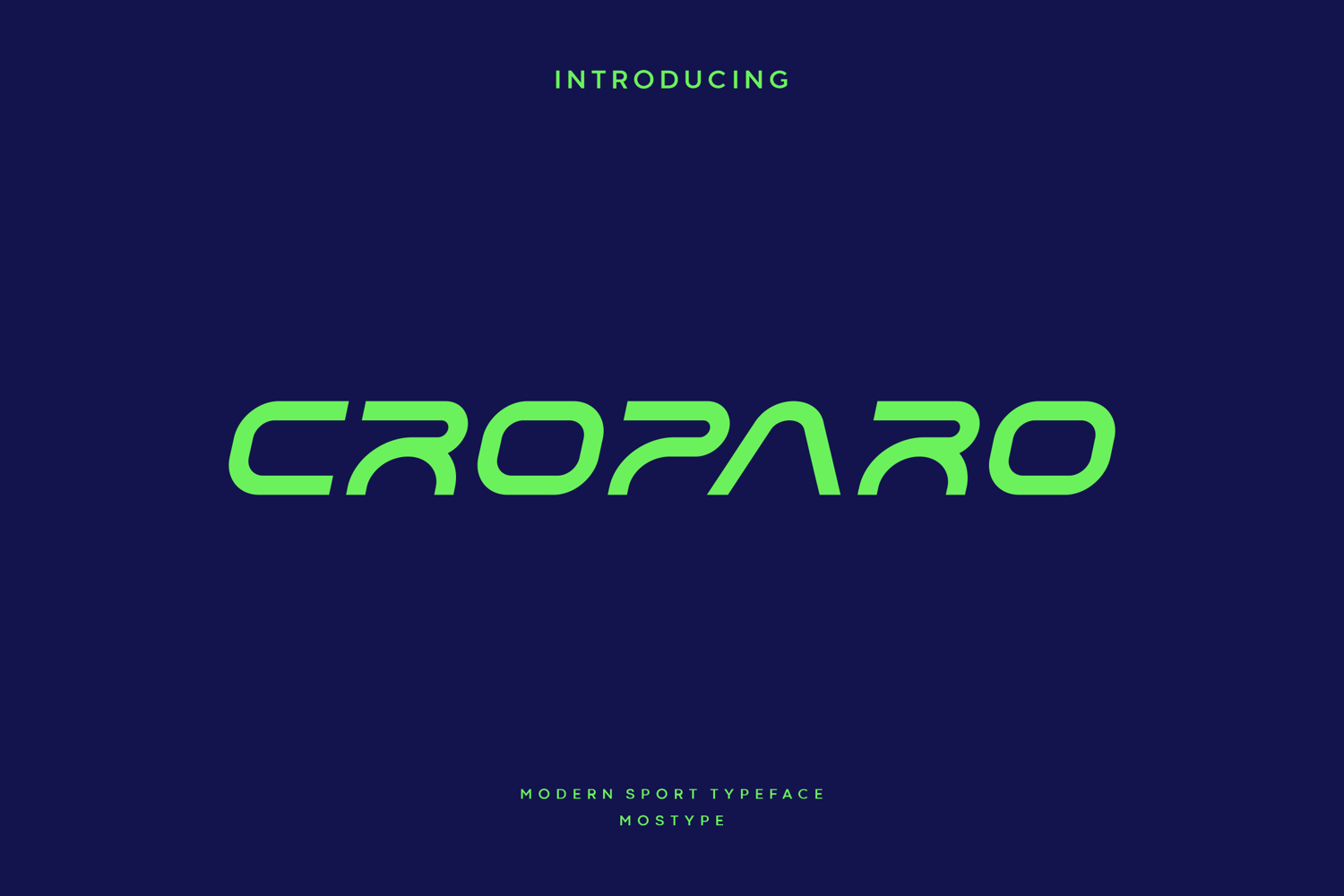
Croparo - Modern Sport Typeface
Croparo is a modern futuristic font with unique uppercase, come with all-caps that will make your design looks futuristic and modern. You can use this font for any purpose, especially to make hi-tech and sport, this font is also suitable for science-fiction movie poster. With an elegant and clean appearance that will make it look good when used as a logo design, branding, magazine, headline and various designs that require the feel of the future.